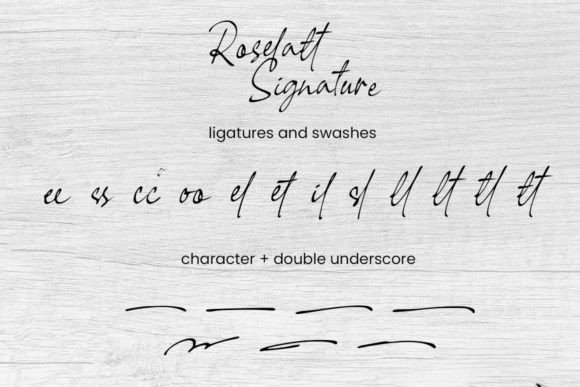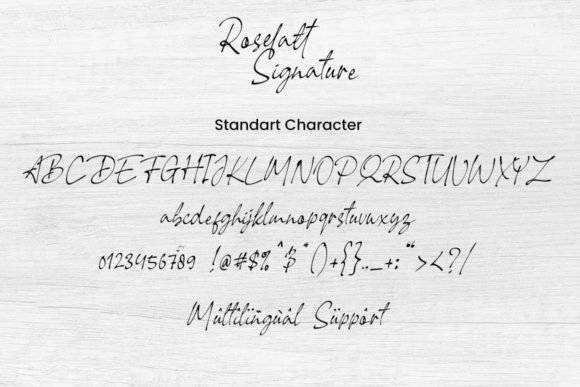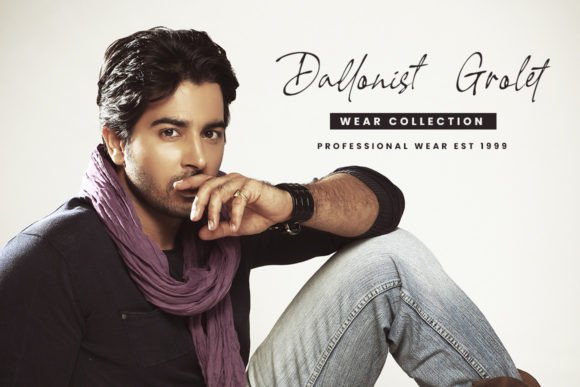
Introduction to Roselatt Font
Roselatt is a lovely modern signature typeface, which is combining a classic signature with a modern style.
Roselatt can be used for various purposes such as headings, logos, wedding invitations, t-shirts, letterheads, signage, labels, news, posters, invitation, stationery, wedding designs, social media posts, advertisements, product packaging, product designs, labels, photography, special events, or anything else .